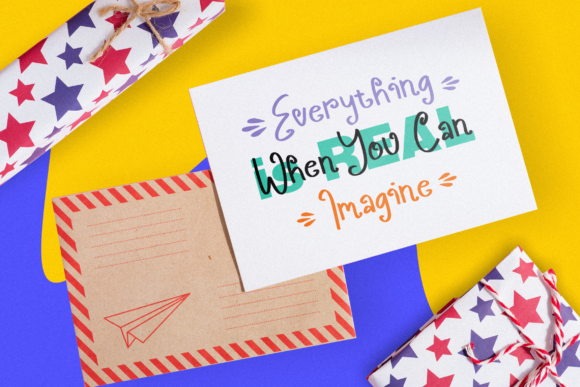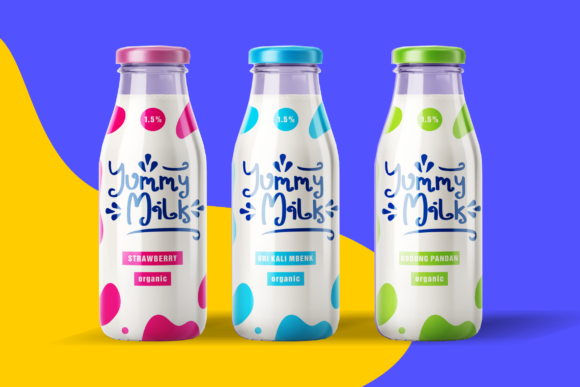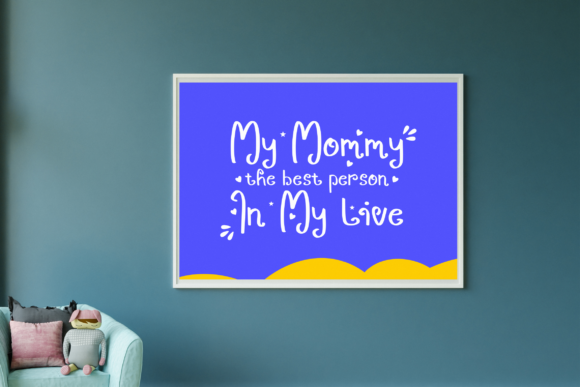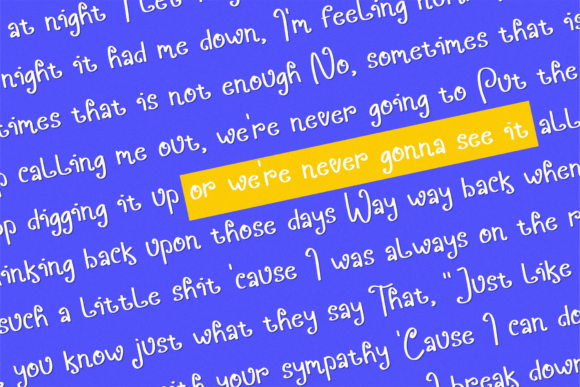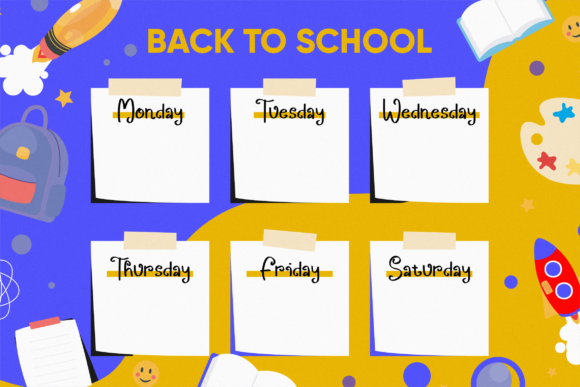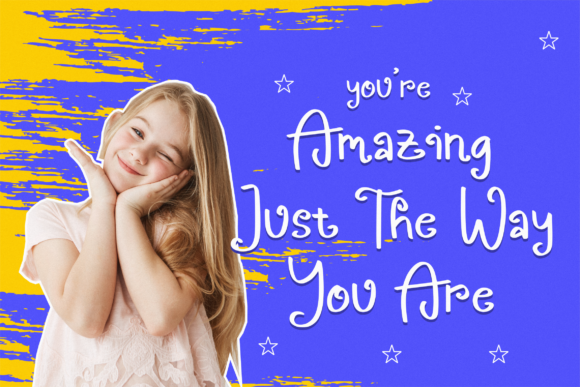
The Dreamcoil Font: A Chic and Whimsical Script for Creative Projects
Have you ever been in the middle of a design project, and suddenly, you’re stuck on finding the perfect font? I recall a recent experience where I was working on a fashion branding project, and my client requested a font that was both elegant and playful. After hours of searching, I stumbled upon the Dreamcoil font, and it instantly became the star of the show. In this article, we’ll dive into the world of Dreamcoil, exploring its features, uses, and some helpful tips for incorporating it into your creative projects.
A Personal Review of Dreamcoil
As a designer, I’m always on the lookout for fonts that can elevate my projects and make them stand out. Here’s my honest review of Dreamcoil:
- ✨ Smooth curves and flowing lines that give it a luxurious feel
- ✅ Highly detailed and intricate design, perfect for fashion branding and editorial designs
- 💫 Whimsical and chic, making it perfect for projects that require a touch of elegance
- 📚 Excellent for use in titles, headings, and other display text
While Dreamcoil is an amazing font, there are a few things to keep in mind:
- ⚠️ May not be suitable for body text or long paragraphs, as it can be quite ornate
- 🤔 Limited use of uppercase letters, which may require creative workarounds
A Practical Guide to Using Dreamcoil
Now that we’ve covered the basics, let’s dive into how to use Dreamcoil in some popular design platforms:
- Experiment with OpenType features, such as glyphs and stylistic alternates, to add more flair to your design
- Choose Dreamcoil from your font list and explore the OpenType panel for advanced features like ligatures and swashes
The Backstory of Dreamcoil
While the true story behind Dreamcoil’s creation may be unknown, let’s imagine that it was designed by a talented typographer who wanted to create a font that embodied the elegance and sophistication of high-end fashion. With its smooth curves and intricate details, Dreamcoil is the perfect reflection of this vision.
Q: What is the best use for Dreamcoil?
A: Dreamcoil is perfect for fashion branding, editorial designs, and any project that requires a touch of elegance and sophistication.
Q: Can I use Dreamcoil for body text?
A: While Dreamcoil is stunning, it’s not ideal for body text or long paragraphs. Its ornate design makes it better suited for titles, headings, and display text.